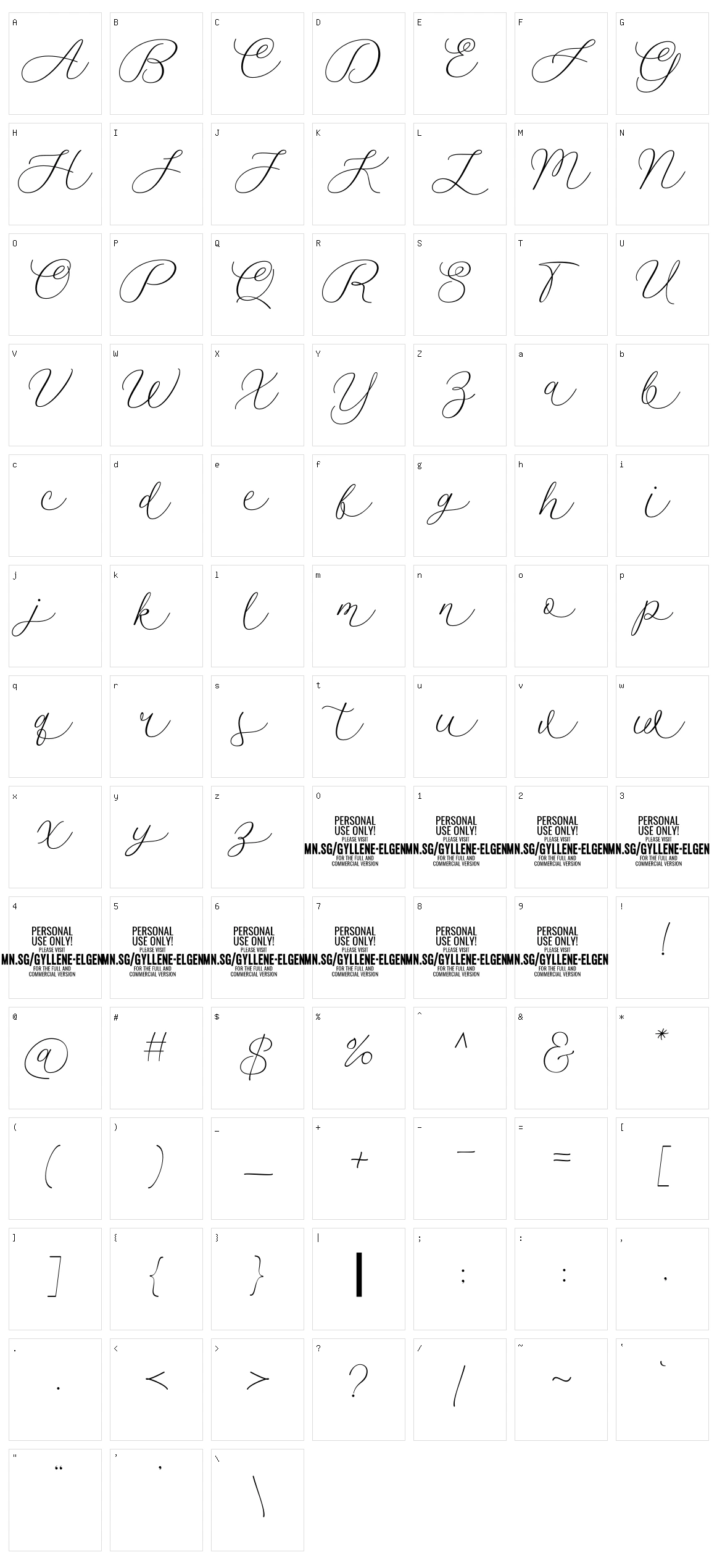
Gyllene Elgen, created by Mans Greback, is a delicate and captivating handwriting font that exudes romance and charm. With its thin, beautiful lines, and loopy, decorative swirls, this typeface brings a touch of elegance and sophistication to your design projects. Perfect for invitations, personal notes, and other heartfelt communications, Gyllene Elgen captures the essence of delicate, handcrafted beauty.
The font was inspired by the golden hues of the Swedish landscape during autumn, as well as the mythical golden elk that roams the forests. Mans Greback sought to bring this enchanting story to life through the graceful curves and fine details of Gyllene Elgen.
The font is built with advanced OpenType functionality and has a guaranteed top-notch quality, containing stylistic and contextual alternates, ligatures, and more features; all to give you full control and customizability. It has extensive lingual support, covering all Latin-based languages, from Northern Europe to South Africa, from America to South-East Asia. It contains all characters and symbols you'll ever need, including all punctuation and numbers.